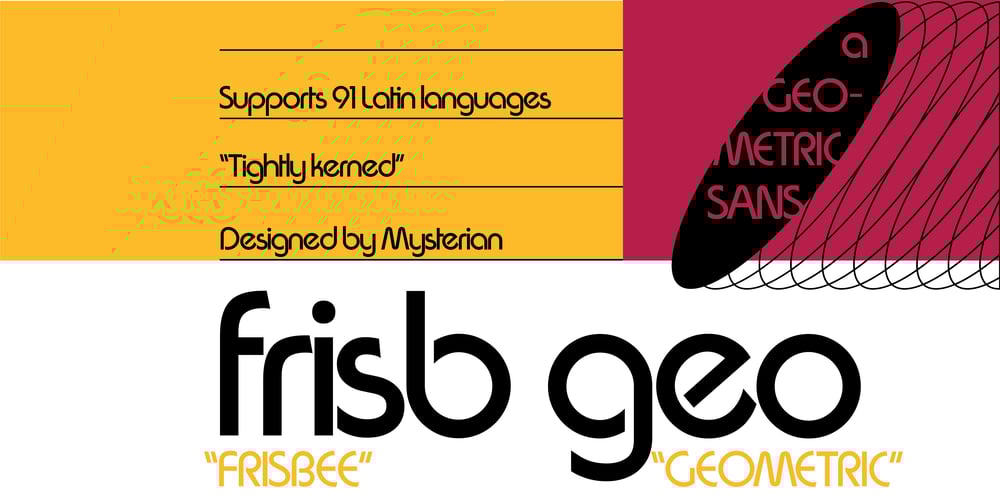
Frisb Geo
Frisb Geo font
Frisb Geo Font Family was designed by Caleb East and published by MYSTERIAN. Frisb Geo contains 1 styles and family package options. Frisb Geo is a stern krautfont made by a Texan with uber-tight kerning. An indictment on human insentience, the typeface is clean, modern and striking. This ‘bauhaus style‘ can evoke an industrial and/or pretentious feel. A midcentury vibe I suppose. To be sure, this is what could happen if Bauhaus and Friz Quadrata had a baby.(Frisbee Geometric)Includes: Upper & lowercase alphabet Numeric 4 alternative ampersands Compatibility with 91 Latin languages Ligatures Don’t hesitate to contact us, we always serve wholeheartedly mysterian.design@gmail.com